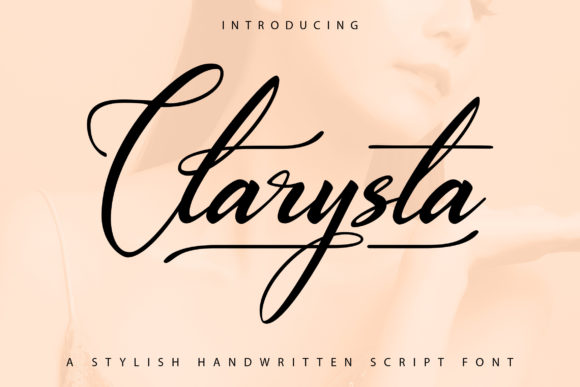
Indulge in the ethereal beauty of Clarystha, a script font that will captivate your senses and elevate your designs to new heights. With its graceful strokes and elegant curves, Clarystha embodies the essence of timeless style that will leave an unforgettable impression on your audience.
Imagine your wedding invitations adorned with Clarystha's enchanting script, conveying the love and joy of your special day with unparalleled elegance. Let your thank-you cards express your heartfelt gratitude in a way that is both personal and unforgettable.
Quotes and greeting cards will come alive with Clarystha's enchanting touch, transforming them into cherished keepsakes that will be treasured for years to come. Logos and business cards will exude a touch of sophistication that sets you apart from the ordinary, leaving a lasting impression that will foster trust and loyalty.
For designers seeking to add a touch of magic to their creations, Clarystha is the perfect choice. Its versatility knows no bounds, effortlessly complementing a wide range of design styles. From invitations to branding materials, Clarystha will add a touch of class and sophistication that will make your work stand out.
Immerse yourself in the world of Clarystha, a font that evokes emotions and inspires creativity. Its timeless beauty will elevate your designs, capturing the hearts and minds of those who encounter it. Embrace the power of Clarystha and unleash the full potential of your imagination.